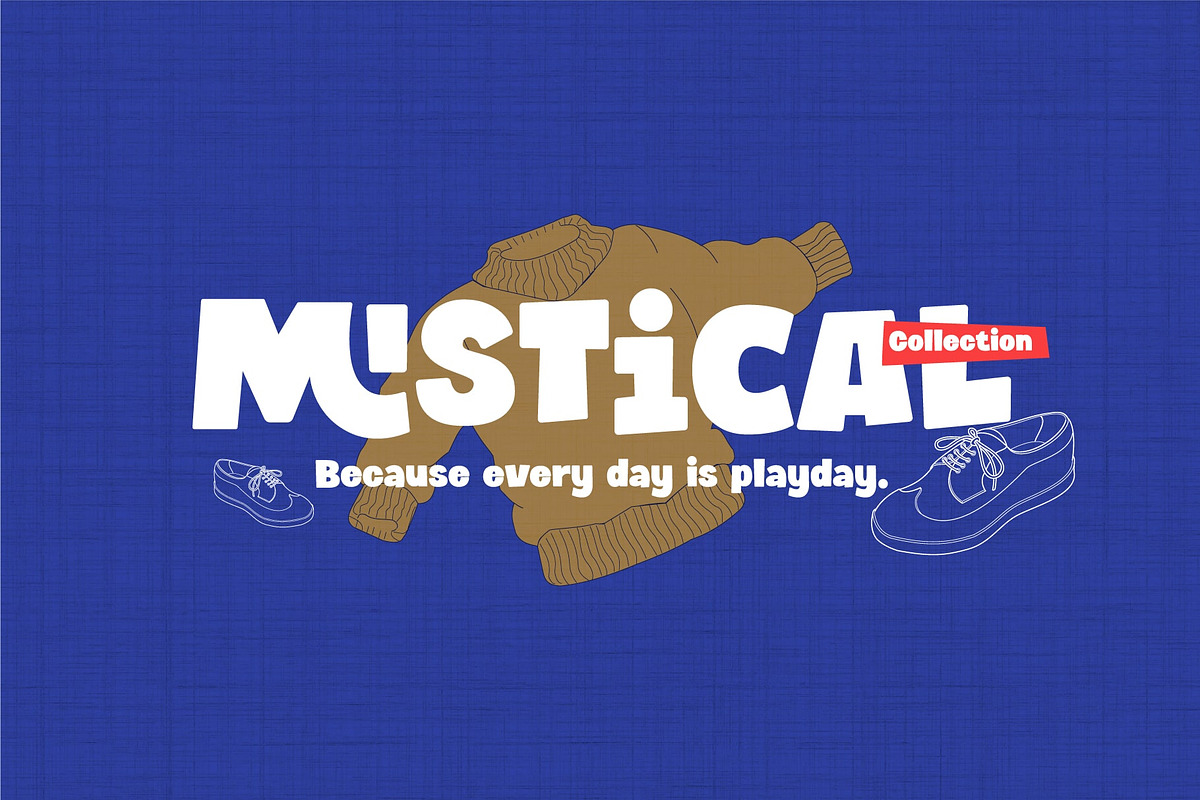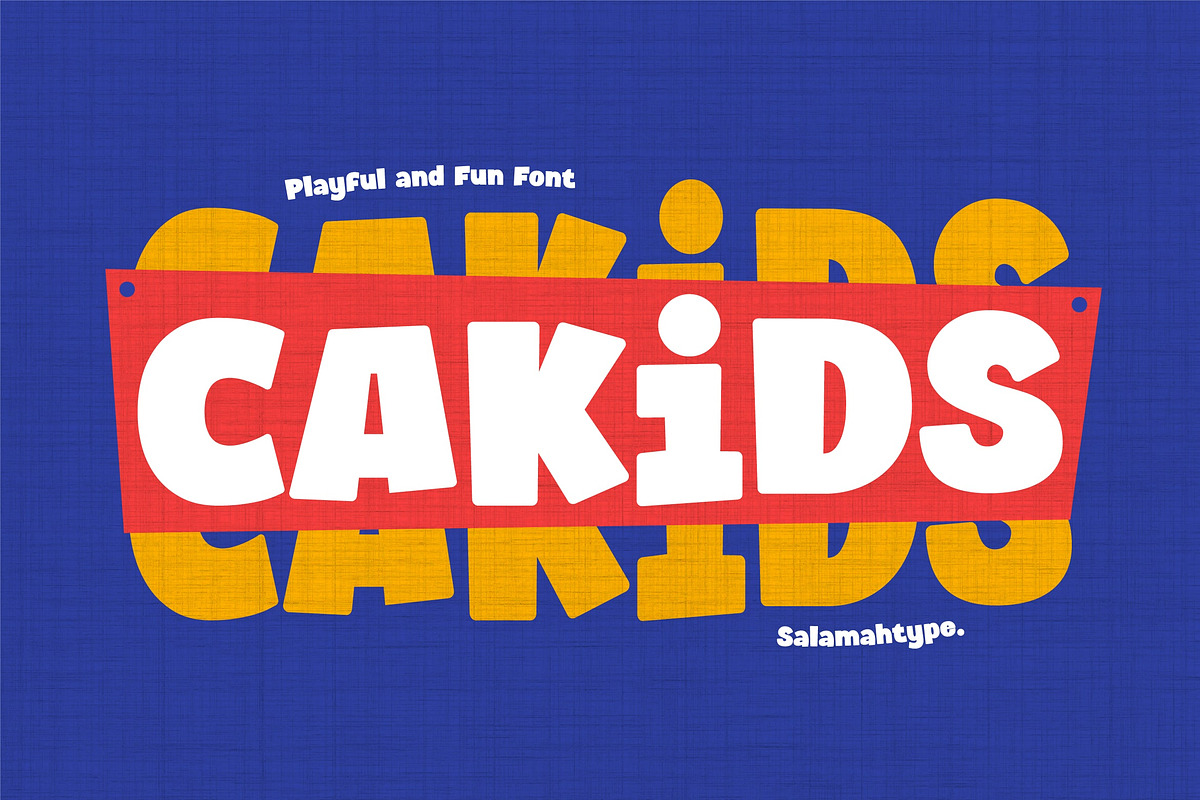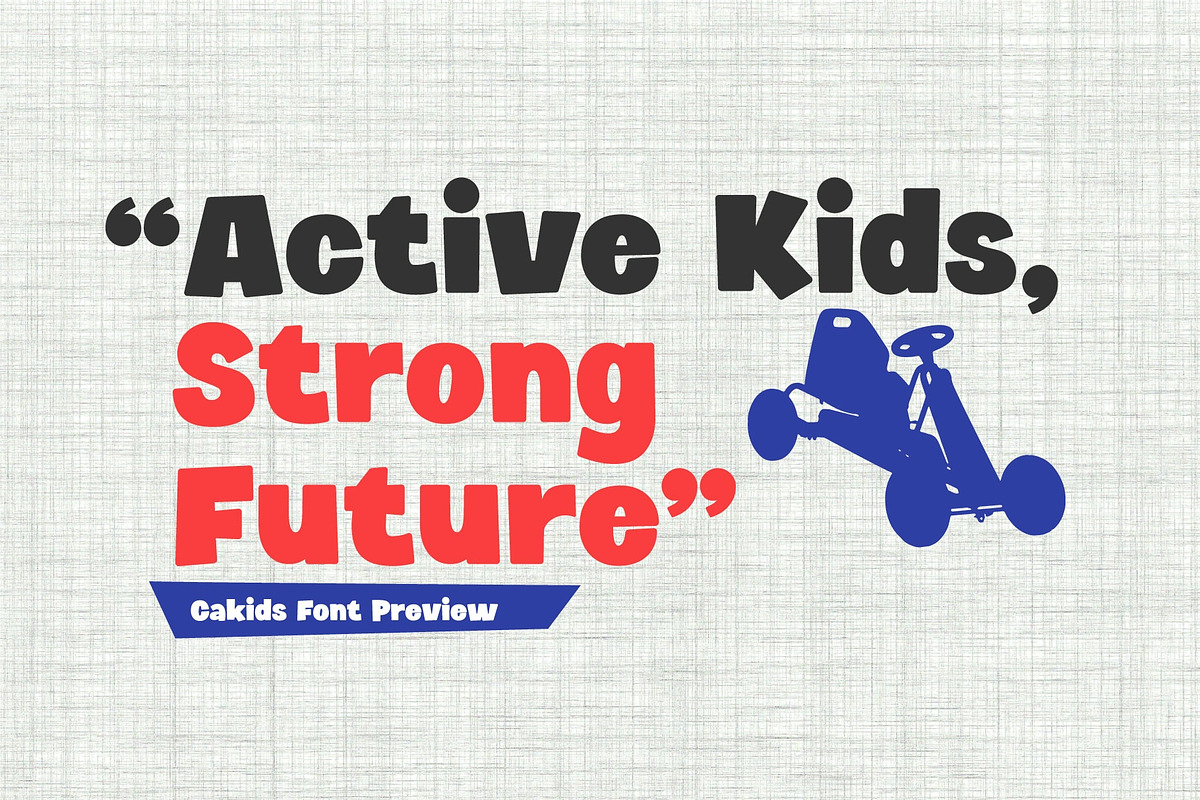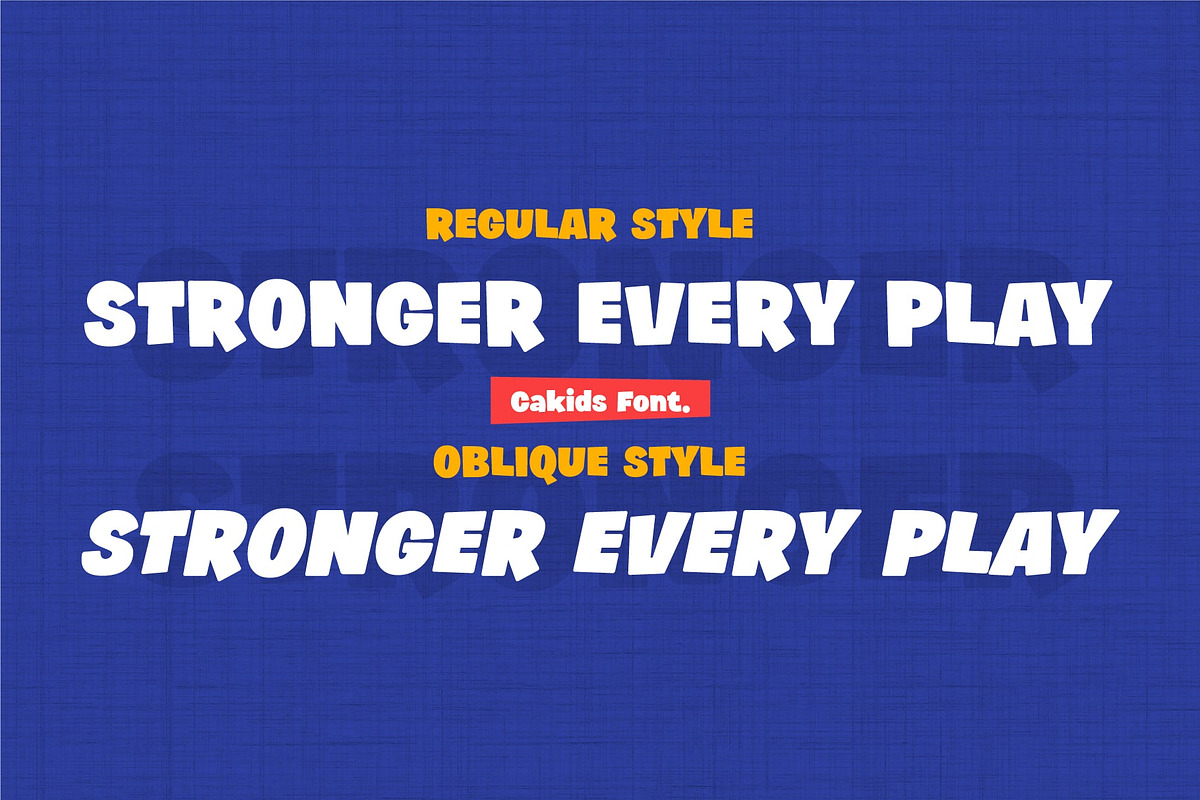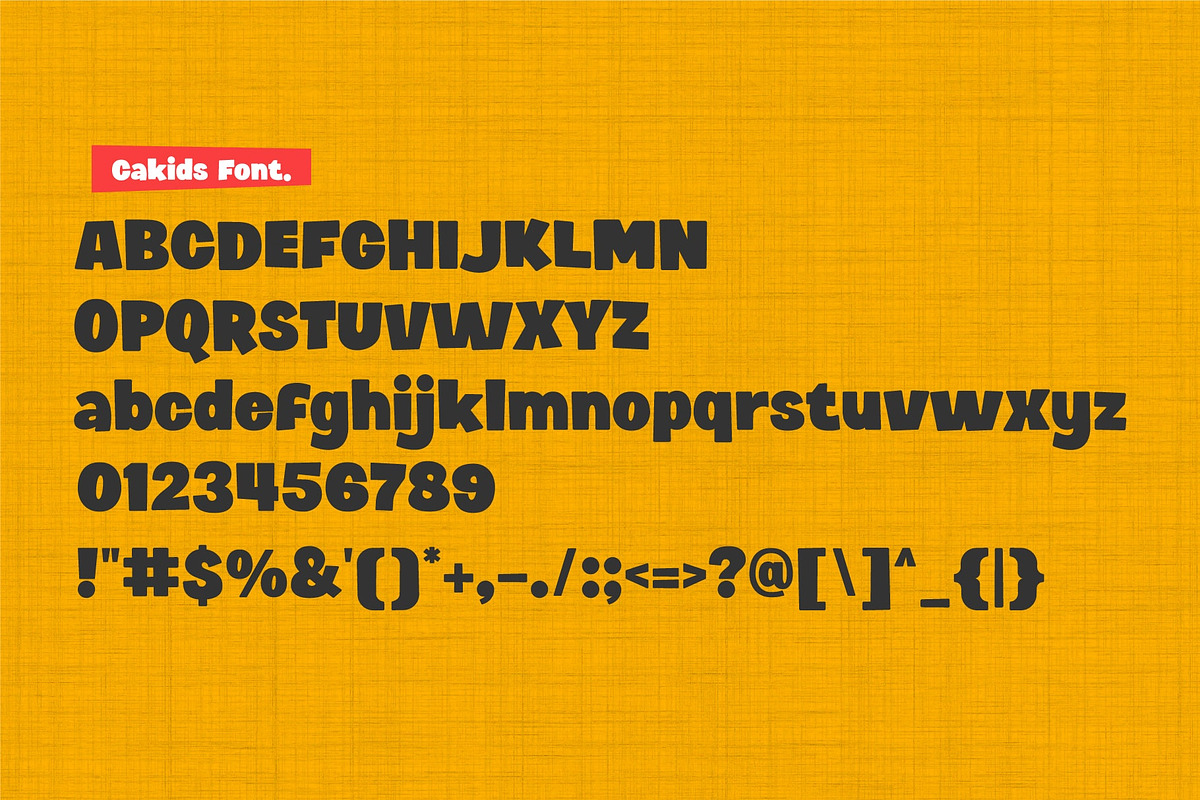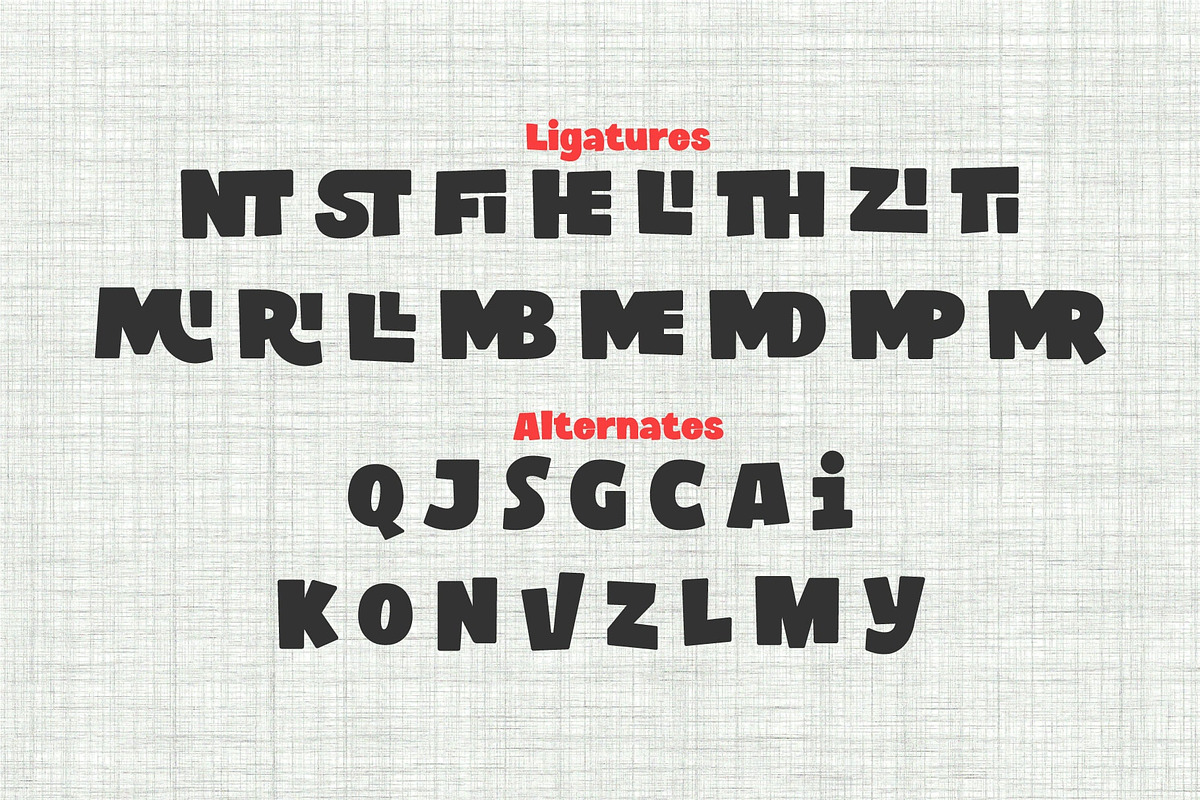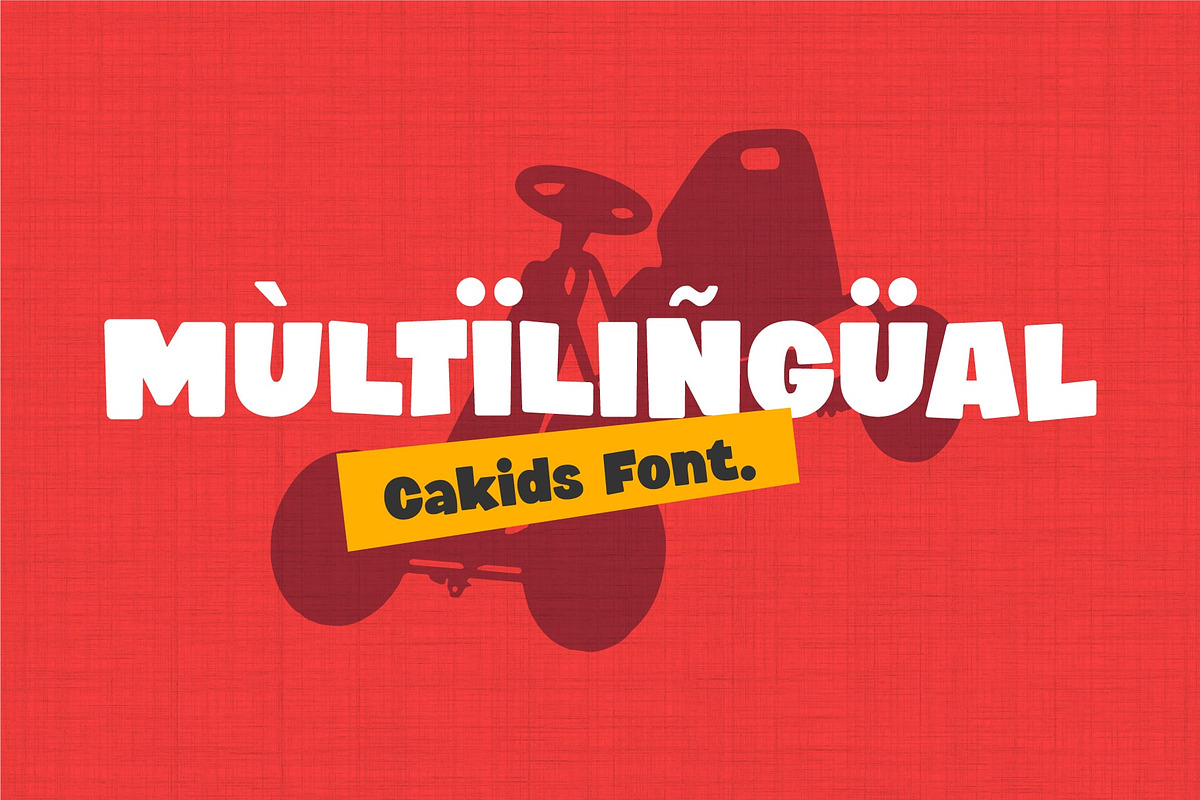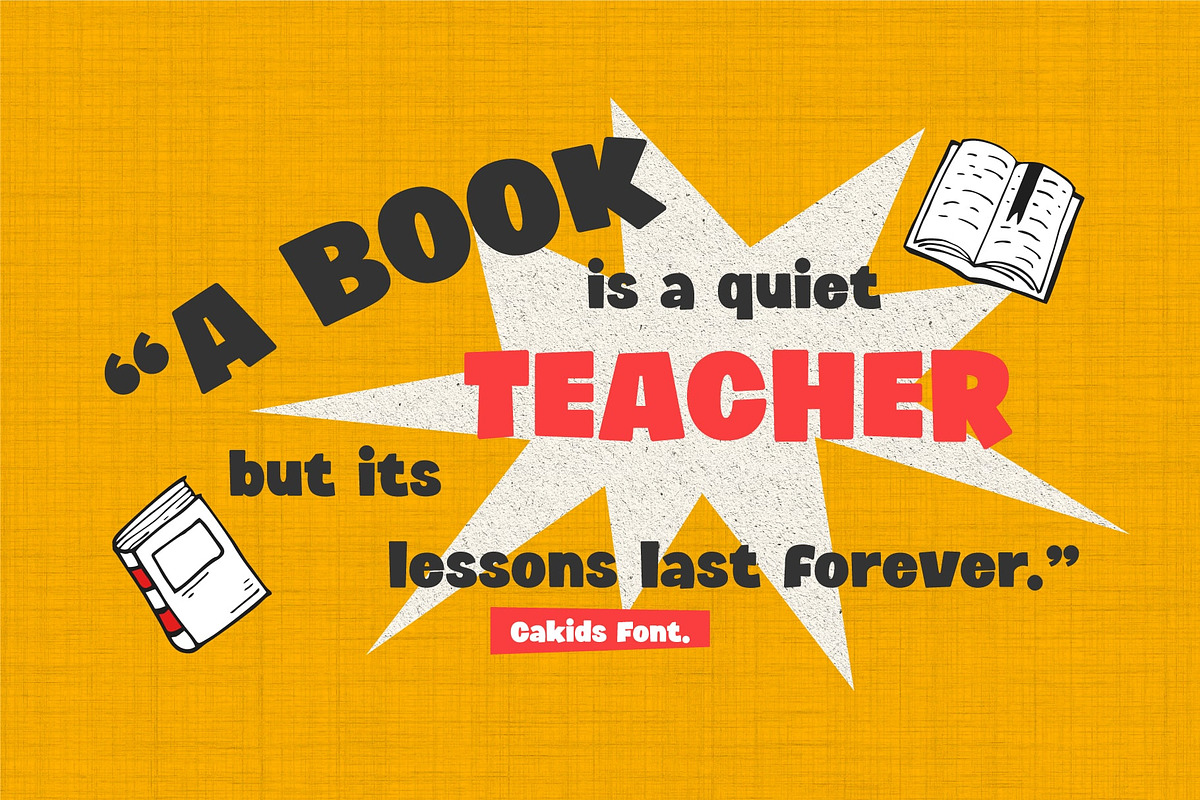
Cakids – Playful Comic Font
Cakids is a cheerful, playful kids font designed with bold, rounded, and friendly letterforms. It brings a fun, energetic, and creative vibe to any children-themed project. With its expressive shapes and lively curves, Cakids also works perfectly as a comic-style font, giving your designs a joyful cartoon feel. Whether for kids branding or comic-style graphics, Cakids delivers a bright, imaginative, and happy personality.
- Bold and playful characters
- Comic-style feel with expressive shapes
- Fun and friendly kids-inspired design
- Easy-to-read, perfect for educational use
- Great for large titles and headlines
- Kids fashion brand logos
- Comic-style posters & cartoon titles
- School & daycare materials
- Children’s snack & toy packaging
- Worksheets & learning pages
- Kids-themed social media content